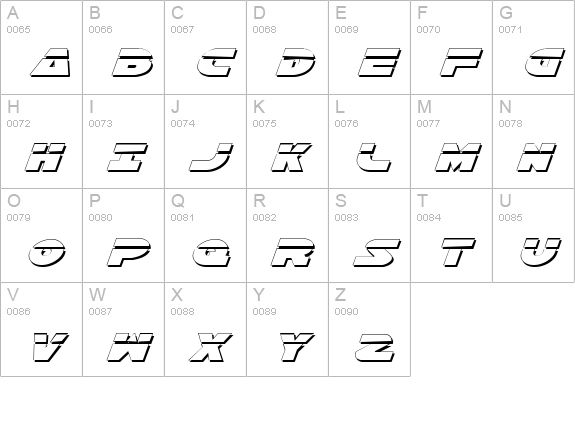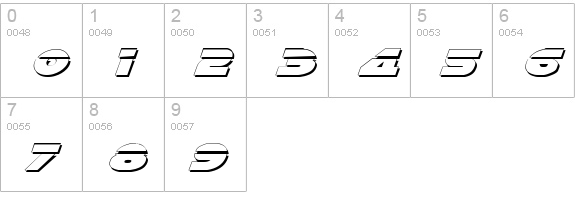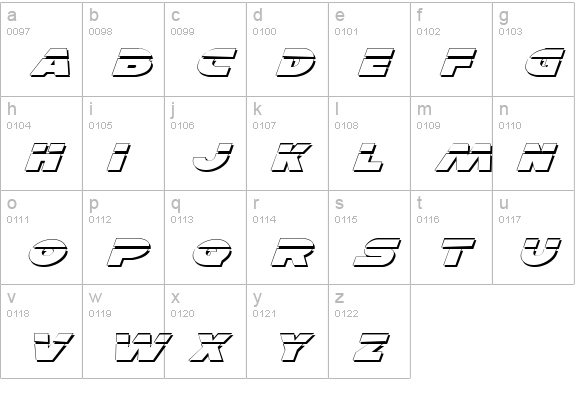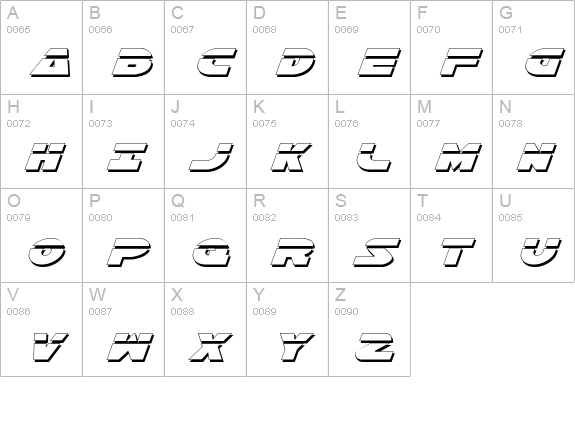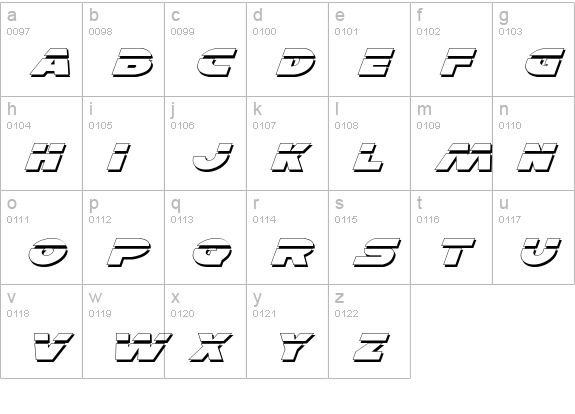
Han Solo Exp Shadow LasItal Font Details
Introducing Han Solo Exp Shadow LasItal font, a powerful and captivating typeface that brings a touch of adventure and intrigue to your designs. This unique font combines the boldness of the Han Solo Exp font with the elegance of a shadowed italic style, resulting in a visually stunning and dynamic text. With its strong and confident appearance, Han Solo Exp Shadow LasItal font is perfect for a wide range of design projects. Whether you're creating movie posters, book covers, branding materials, or even digital artwork, this font will instantly add a sense of excitement and personality to your work. What makes Han Solo Exp Shadow LasItal font even more appealing is that it is freely available to download at FontsMarket.com. This means that you can enhance your designs without any additional cost, making it a valuable asset for both professional designers and enthusiasts alike. The attention to detail in Han Solo Exp Shadow LasItal font is evident in its intricate and carefully crafted letterforms. Each character is expertly designed, ensuring legibility while maintaining a sense of style and flair. The unique combination of sharp angles and playful curves creates a visually captivating effect that will captivate your audience. Han Solo Exp Shadow LasItal font is versatile and adaptable, allowing you to experiment with different styles and effects. Whether you choose to use it as a standalone headline or incorporate it into a larger typographic composition, this font will always make a bold statement. So why wait? Download Han Solo Exp Shadow LasItal font today from FontsMarket.com and unleash your creativity. With its free availability, there's no reason not to add this exceptional typeface to your font collection. Take your designs to new heights with the captivating charm and adventurous spirit of Han Solo Exp Shadow LasItal font.